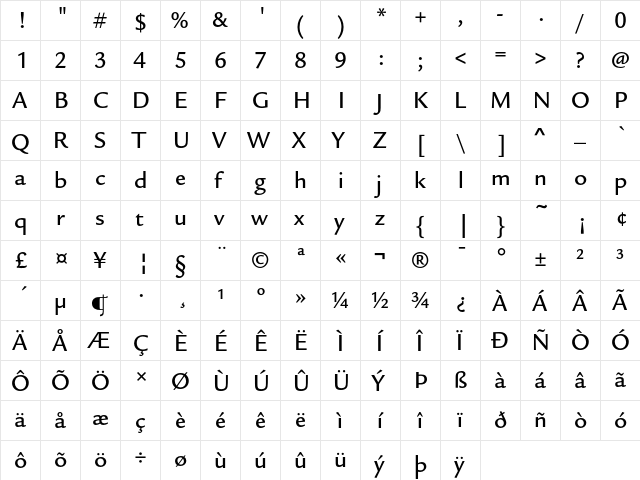
ITC Legacy Sans Medium
Design Context for ITC Legacy Sans Typeface
ITC Legacy Sans takes a measured approach to typography — its balanced proportions and neutral character make it a reliable workhorse for both digital and print work.